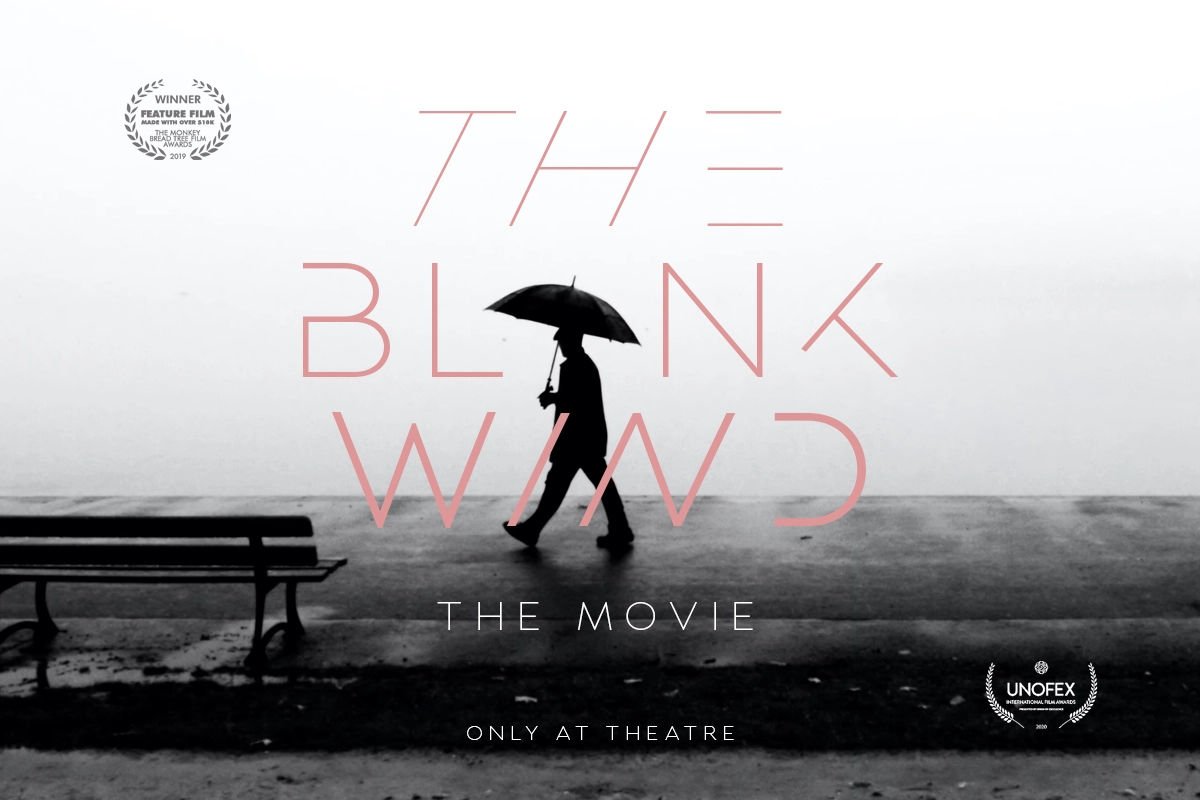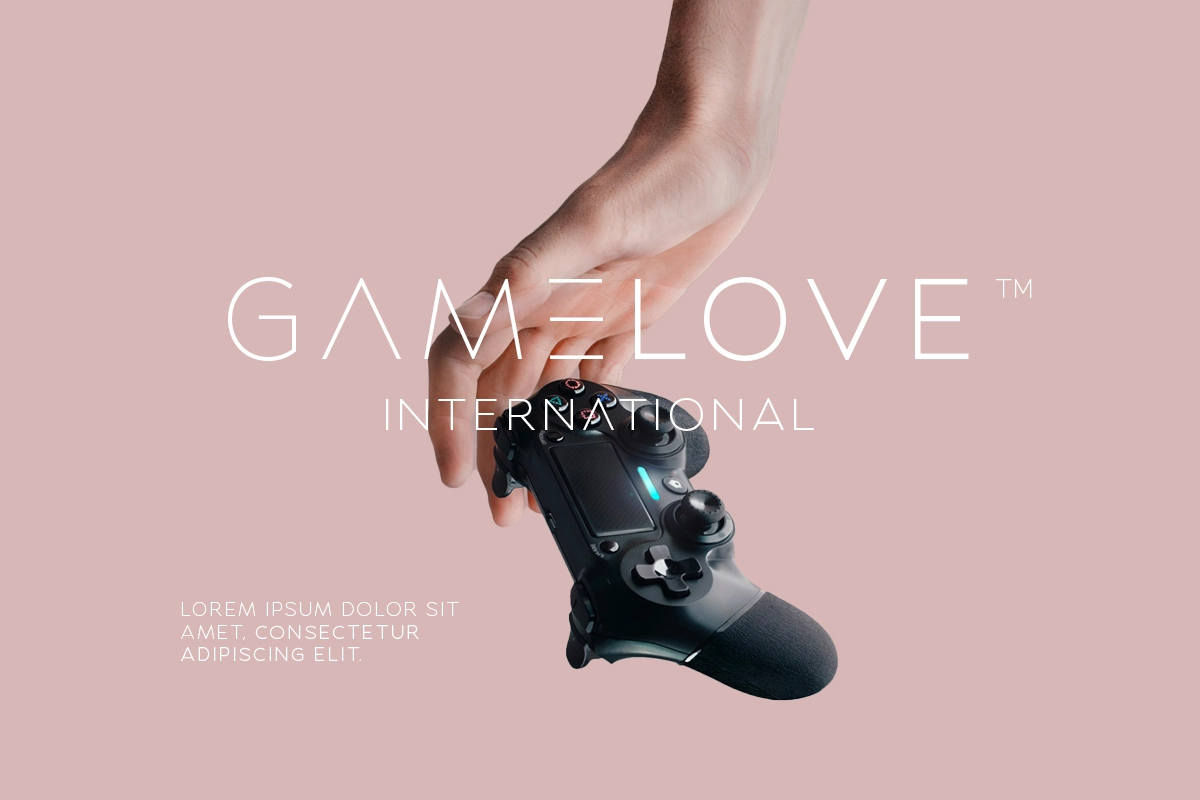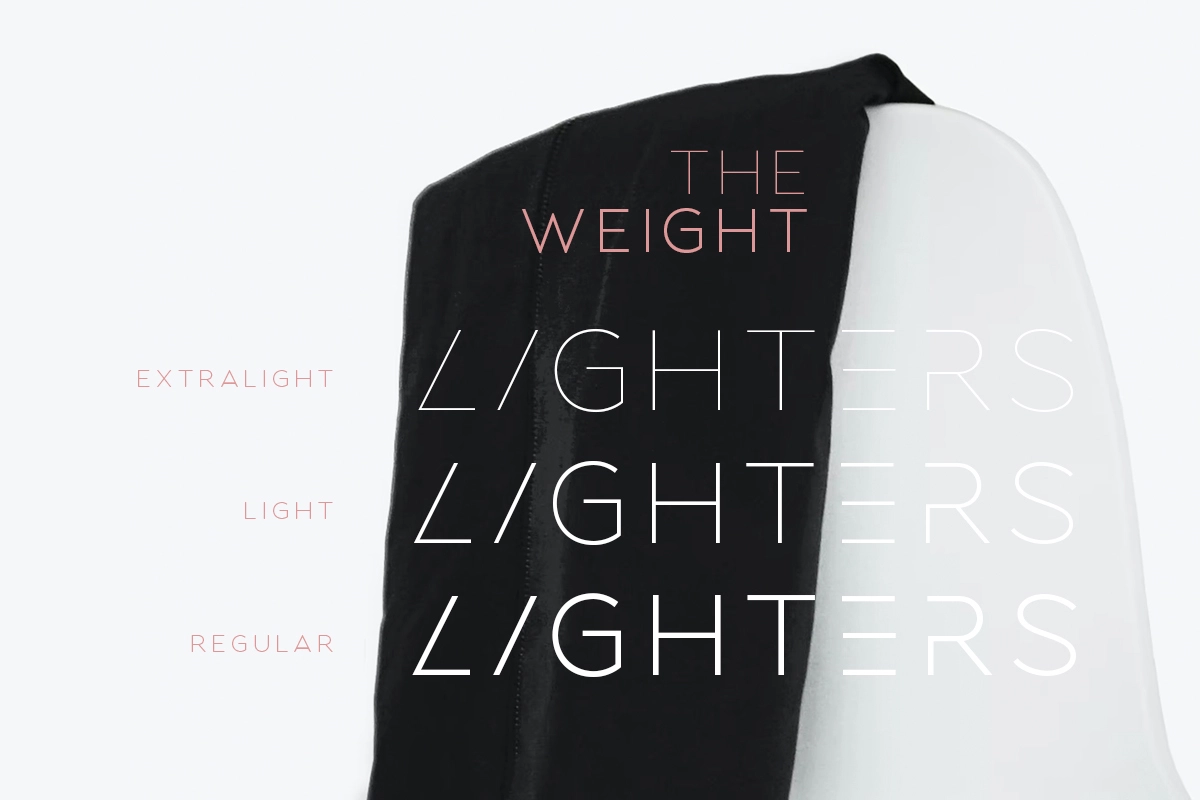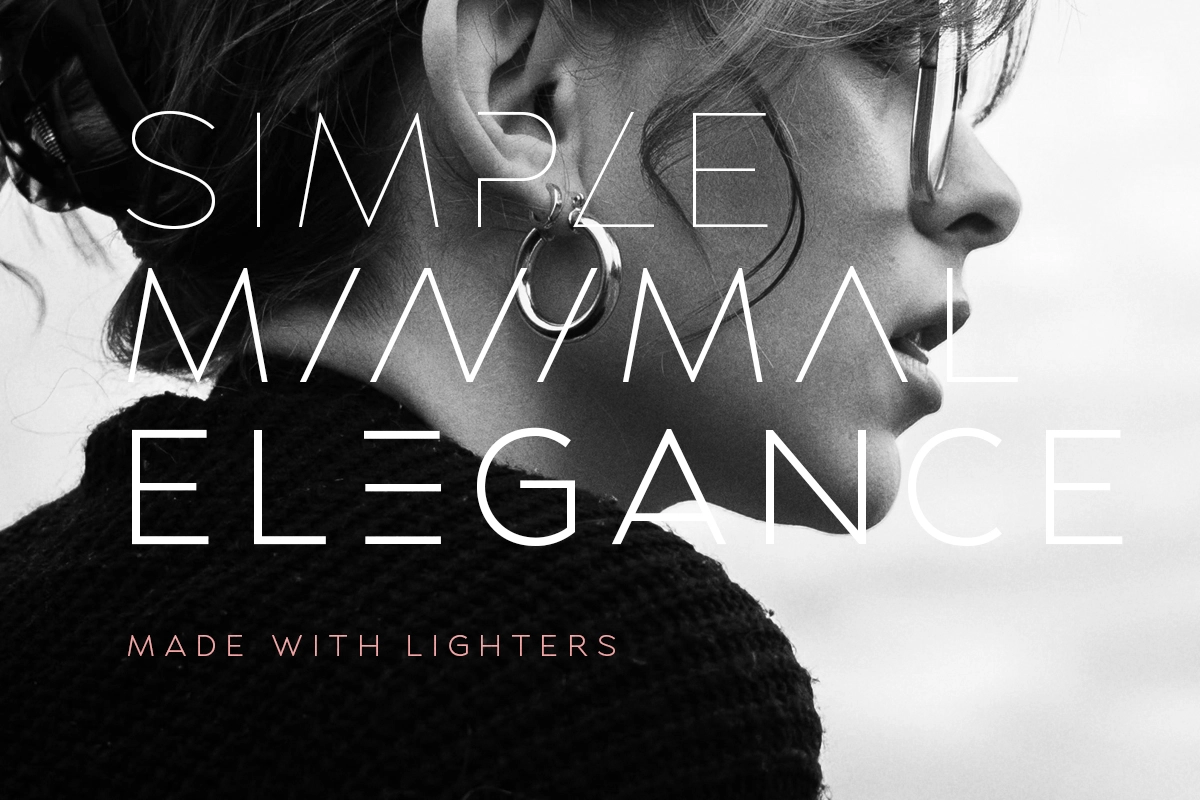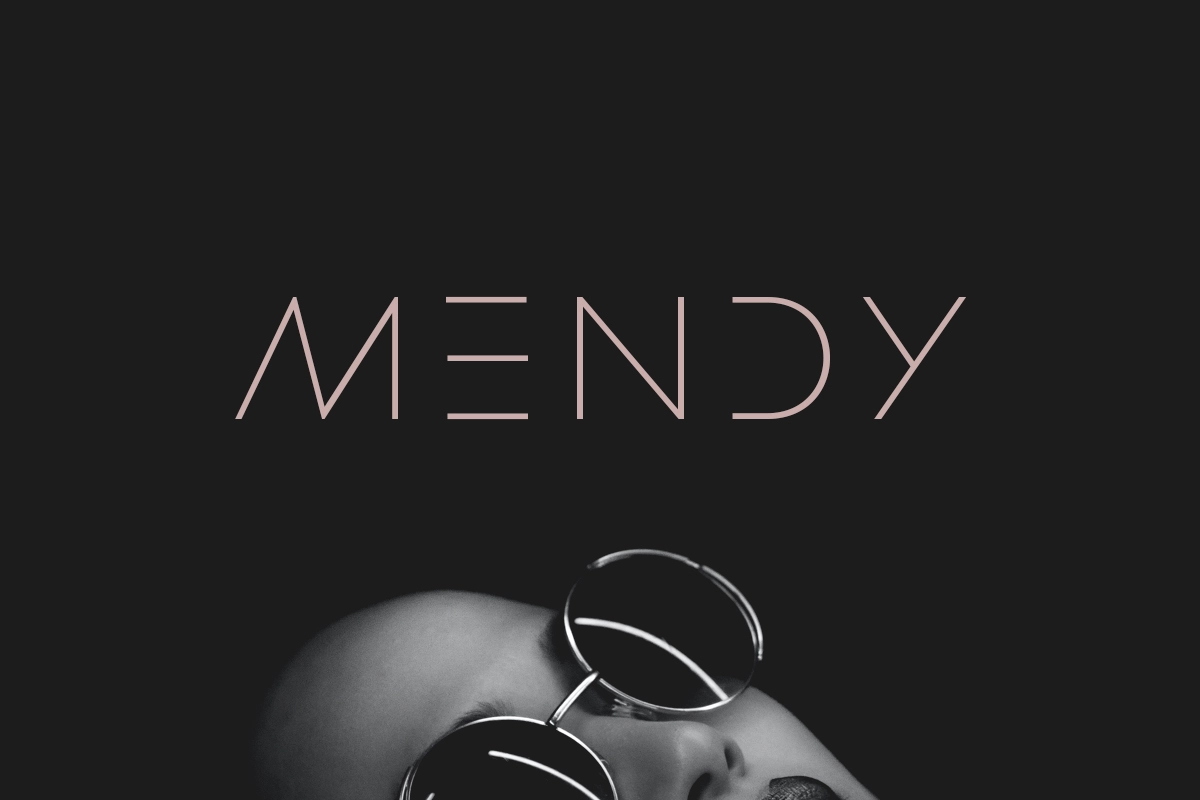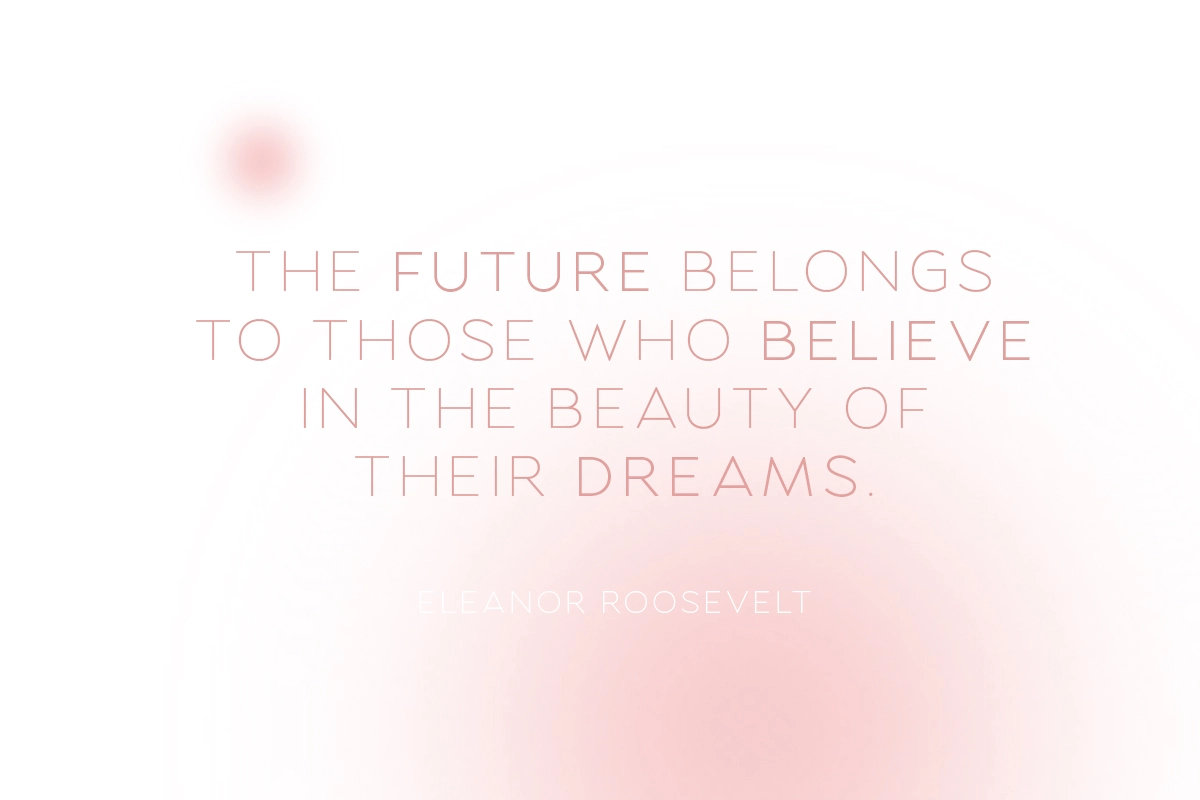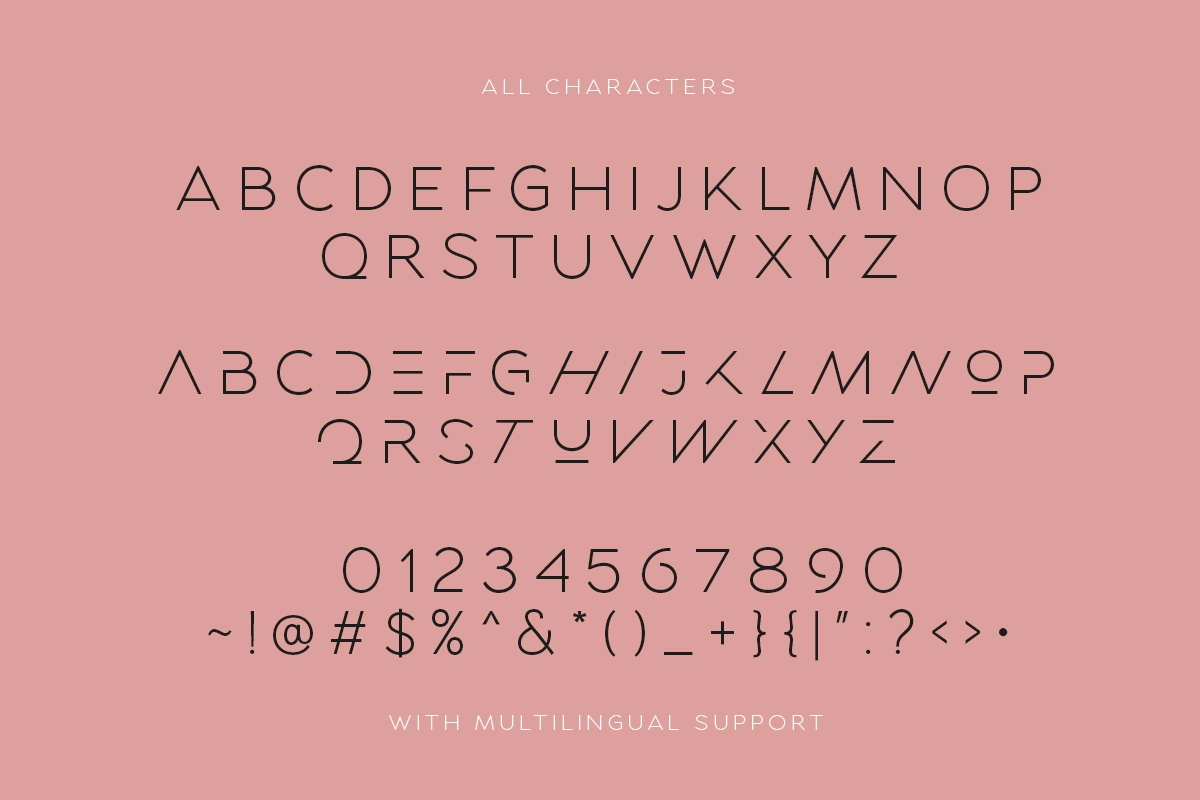
Lighters - Light Logo Font
Lighters is a light and minimalist logo font family with unique lowercase that will make your logo and design looks more clean and simple. With three weight styles that you can use together will make your design more cool. You can use this font for any purpose, especially to make logotype and poster design. You can mix and match the uppercase and lowercase to make your logo more advanced. This font also comes with number, symbol, and multilingual support!